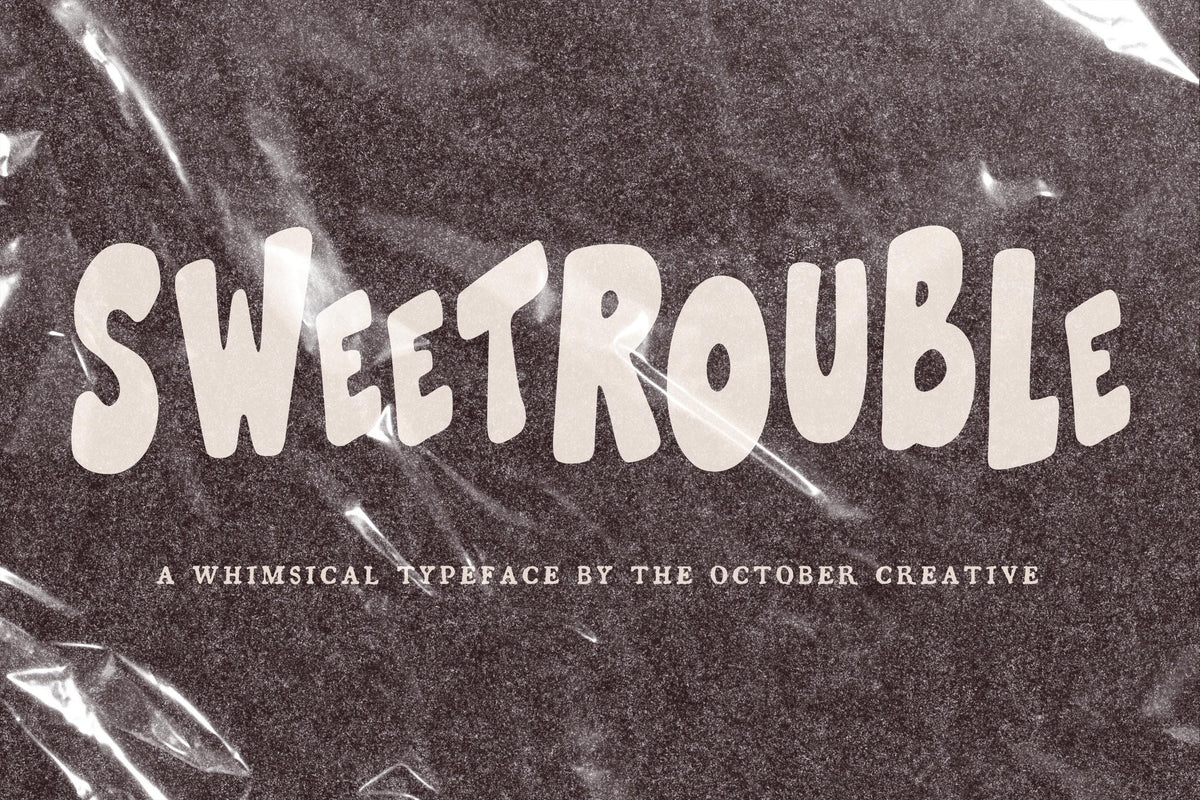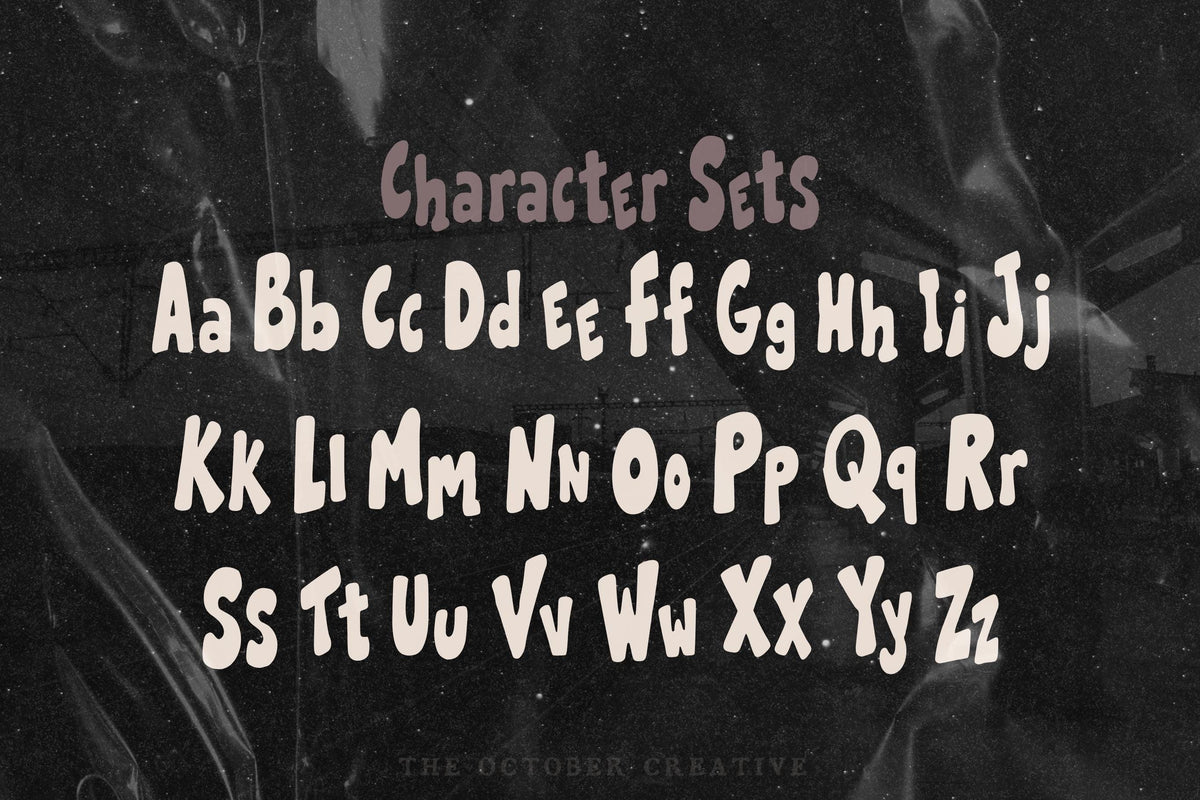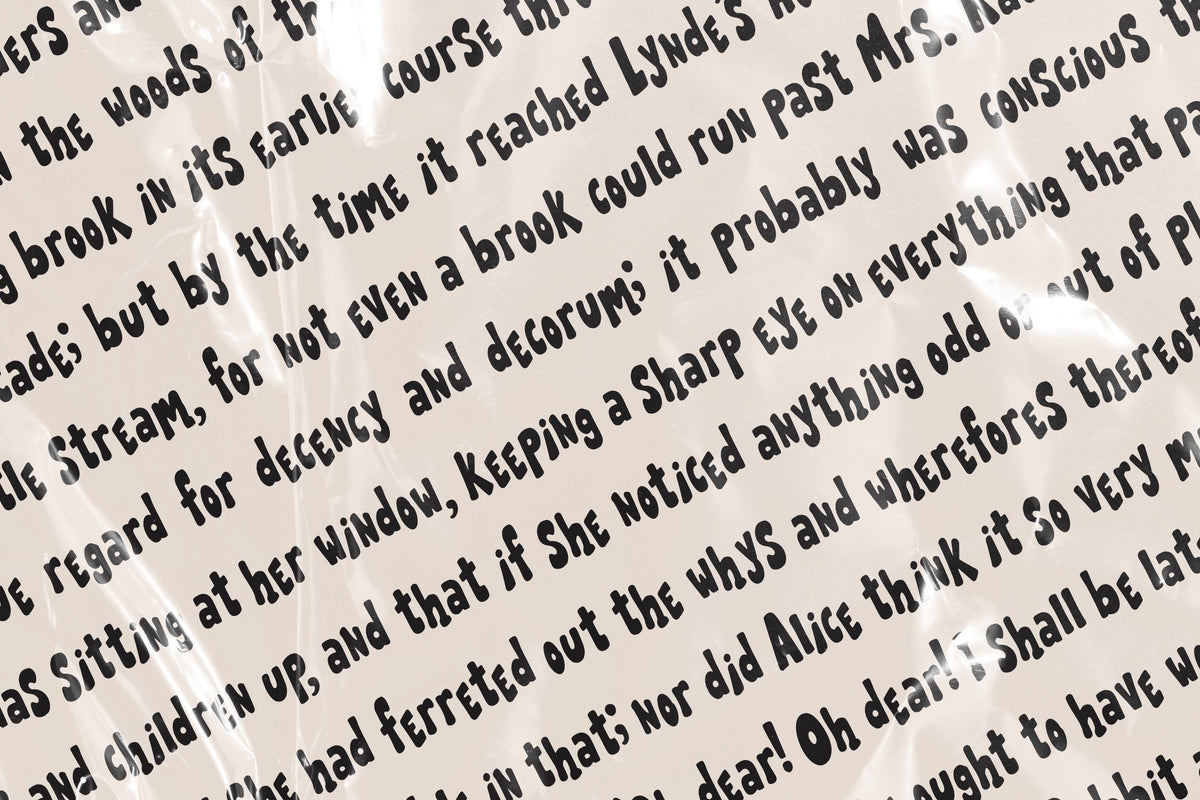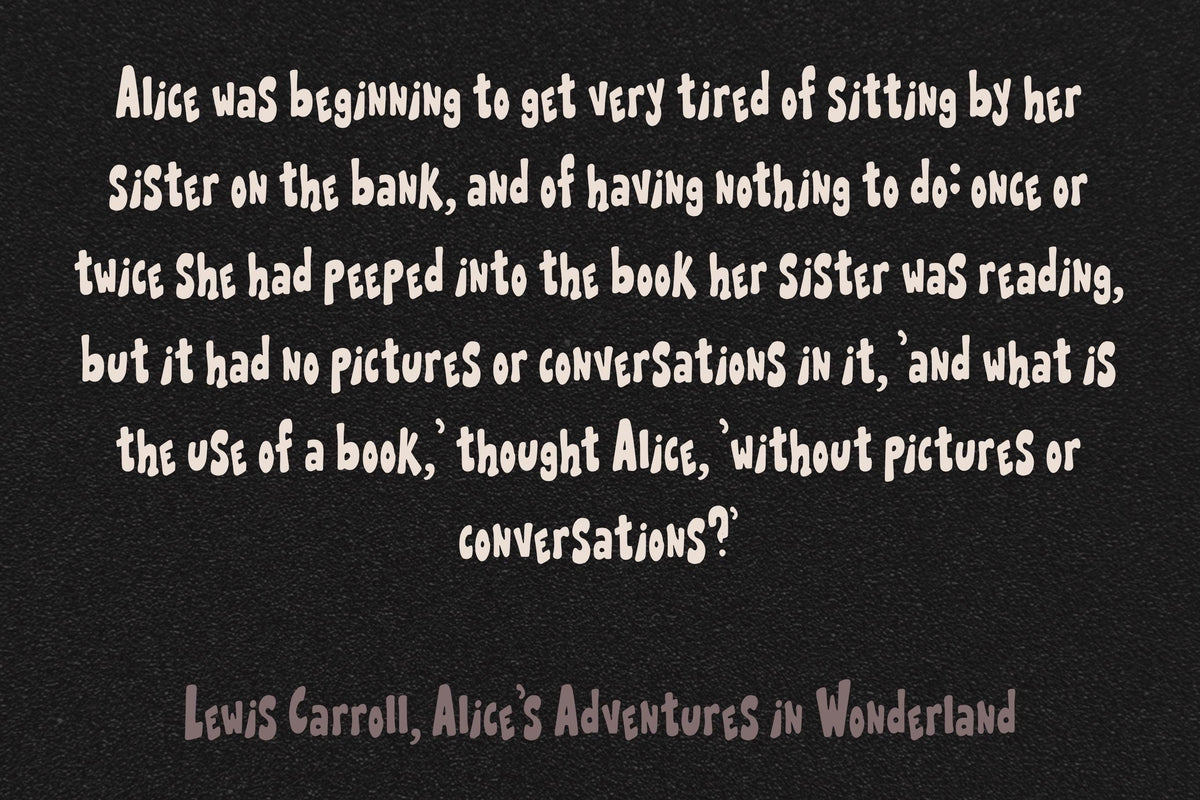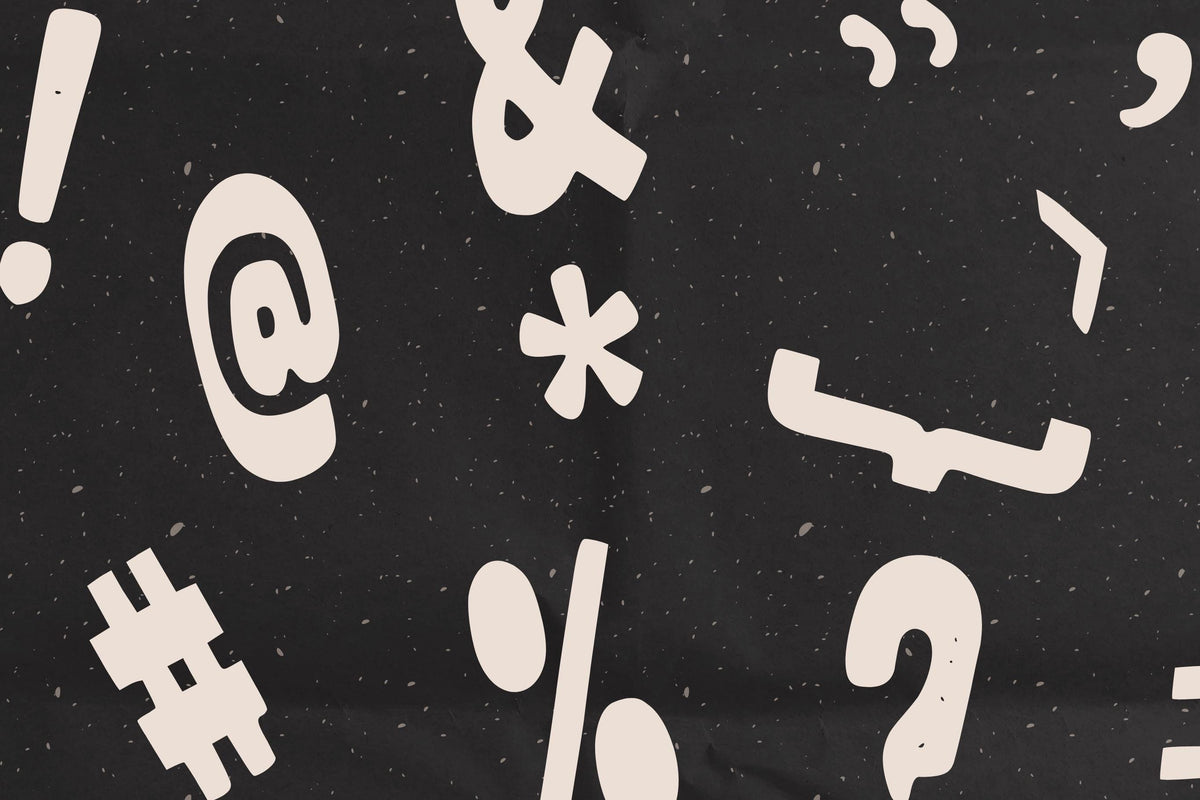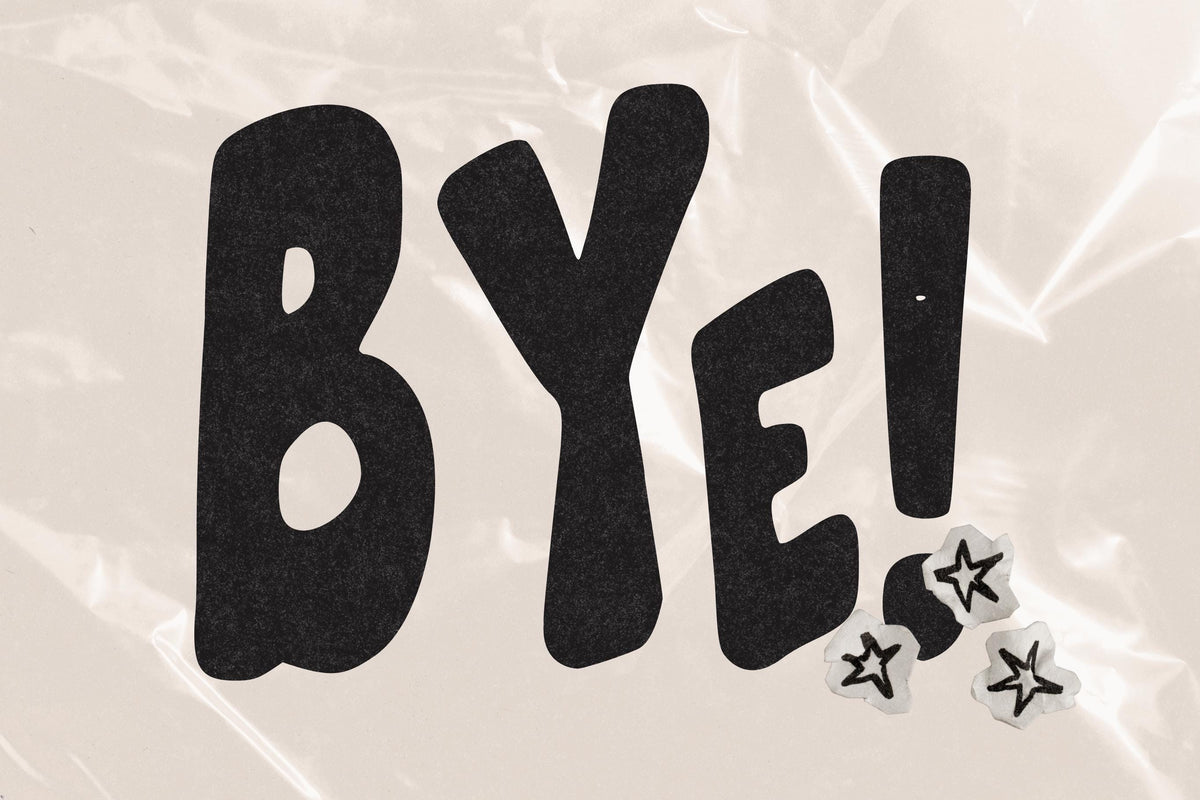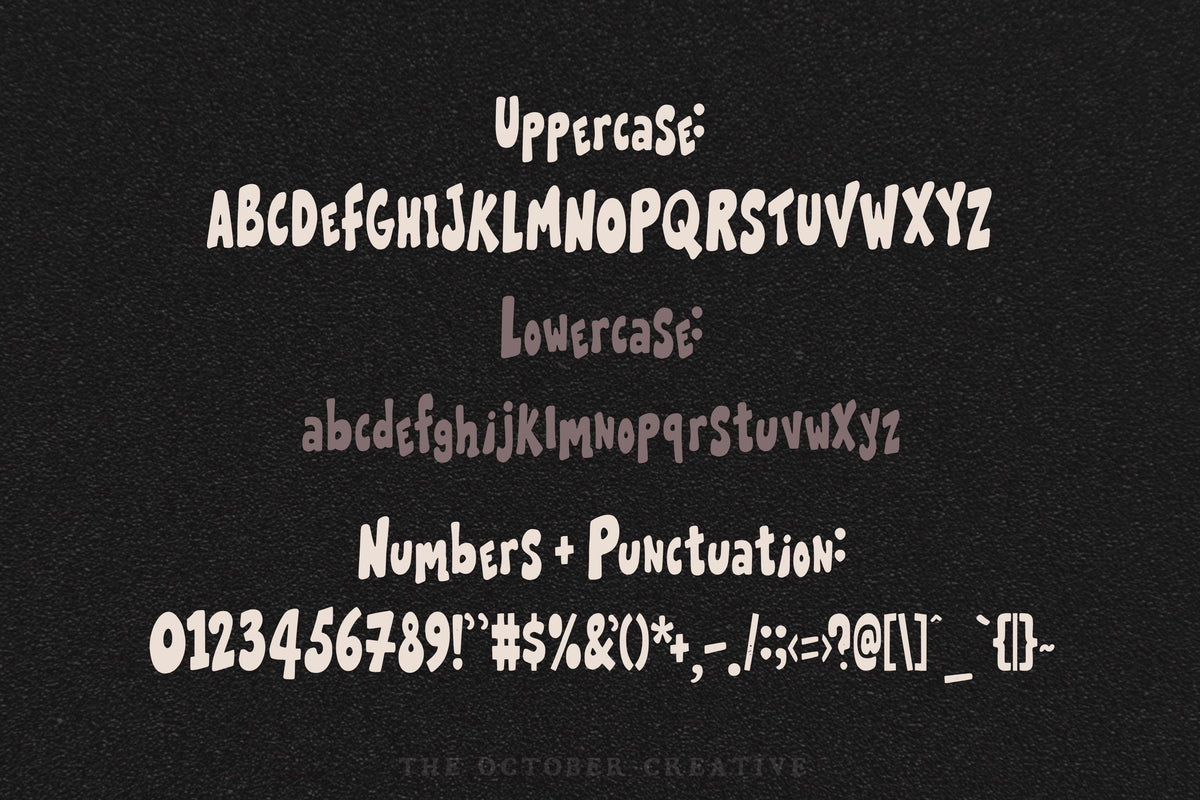
Sweetrouble Font
Sweetrouble is a chunky bubble font with soft, rounded capitals and lowercase letters that bounce up and down the line. It reads from across a room, so it works best big: posters, party signs, sticker sheets, and zine covers.